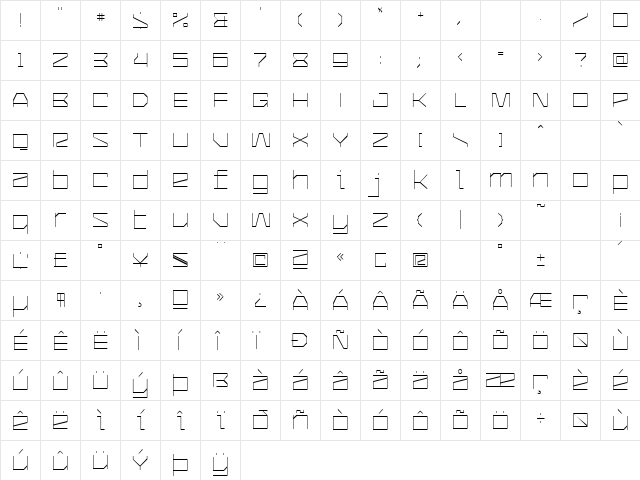
CommunityService Thin
| Foundry | YouWorkForThem |
| Designer | Michael Cina |
Design Context for CommunityService Typeface
CommunityService offers clean, dependable letterforms without strong stylistic allegiance, making it a practical choice for designers who need flexibility. Its slender proportions lend an understated elegance to any composition.